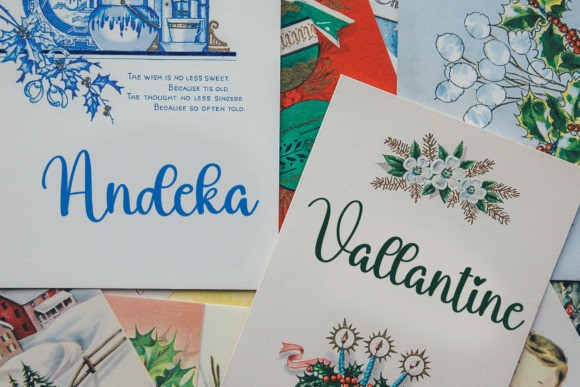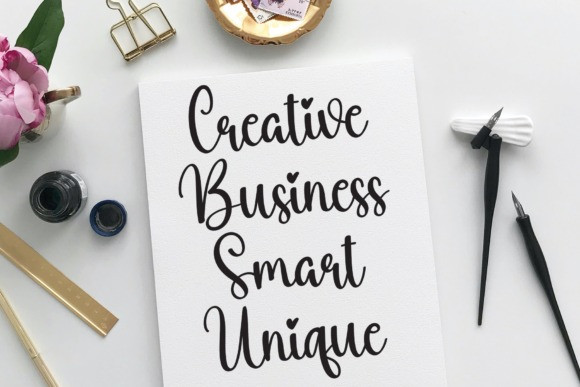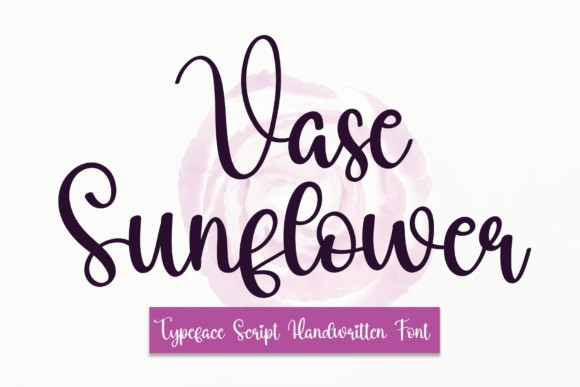
Vase Sunflower Font
Vase Sunflower Font, the latest style letters are perfect for wall displays, wedding invitations, social media post logos, advertisements, product packaging, product designs, labels, photography, watermarks, invitations, stationery, and any project that requires a handwritten taste.